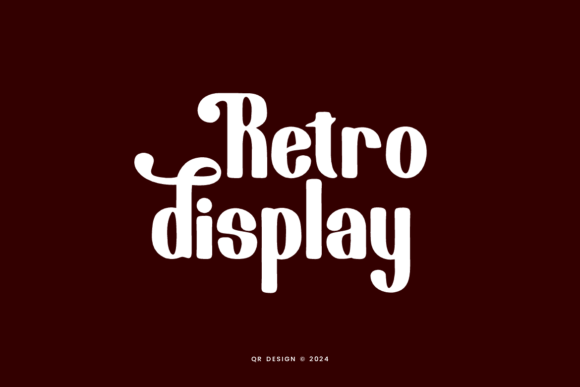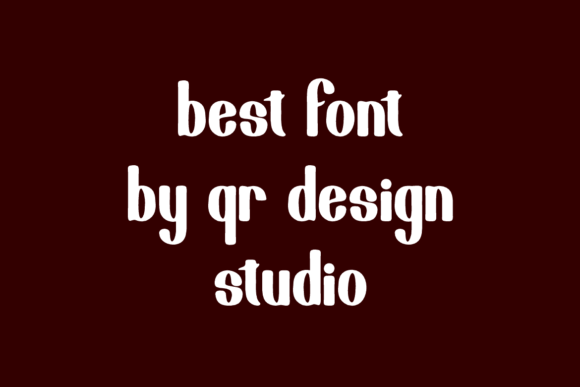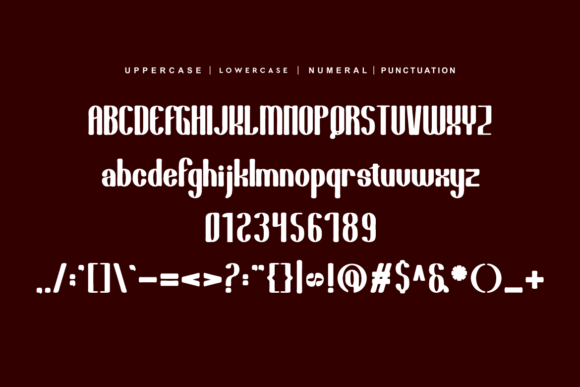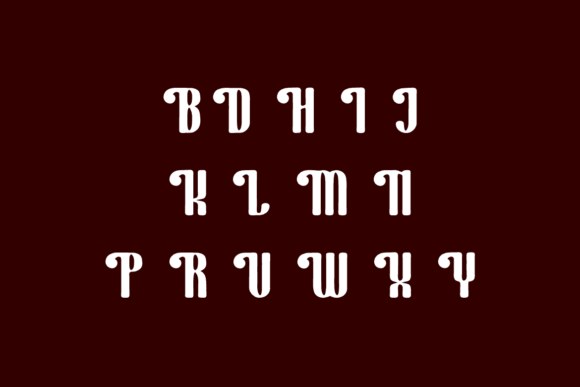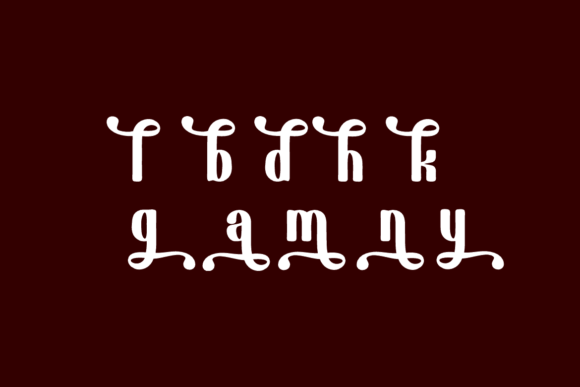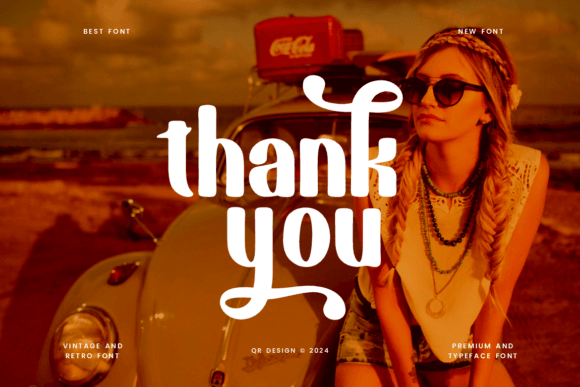
The Foylisha Font: A Creative Game-Changer
An Honest Review of Foylisha
What I Love About Foylisha ✨
- 💥 **Unique character**: Foylisha has a one-of-a-kind personality that adds a touch of sophistication to any design.
- ✅ **Versatility**: This font is incredibly versatile, making it perfect for a wide range of creative projects, from logos and branding to invitations and social media graphics.
- 🎨 **Artistic flair**: The font’s intricate details and swirling lines add a touch of artistic flair to any design, making it perfect for creative hobbyists and professional designers alike.
- 📈 **Scalability**: Foylisha remains legible and elegant even at small sizes, making it perfect for use on various platforms and devices.
- ⚠️ **Limited use in body text**: While Foylisha is stunning as a display font, it may not be the best choice for lengthy body text due to its intricate details and relatively low readability.
- 🤔 **Some OpenType features may not work on all platforms**: While Foylisha supports advanced OpenType features, some platforms or software may not fully support these features, which could limit their use.
The Story Behind Foylisha
While the true story behind Foylisha remains a mystery, it’s said that the font was created by a talented type designer who wanted to craft a unique, artistic font that would inspire creativity and self-expression. The designer’s passion project involved pouring heart and soul into every detail, from the font’s intricate lines to its elegant curves. The result is a font that’s both beautiful and functional.
Q: What makes Foylisha so unique?
A: Foylisha’s unique blend of intricate details, swirling lines, and elegant curves sets it apart from other fonts.
Q: Is Foylisha difficult to read?
A: While Foylisha is a display font, it remains legible at larger sizes. However, it may not be the best choice for lengthy body text due to its intricate details.